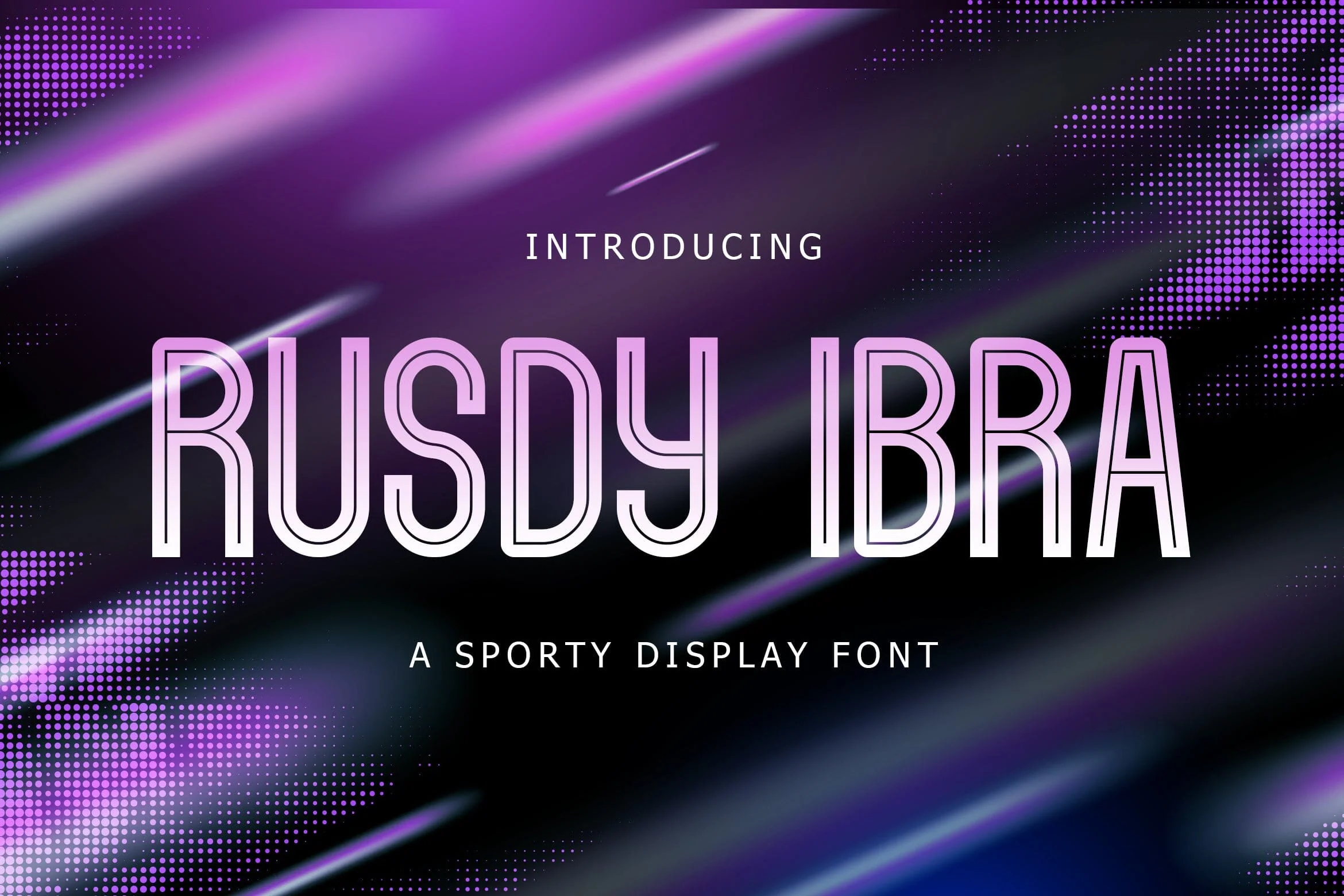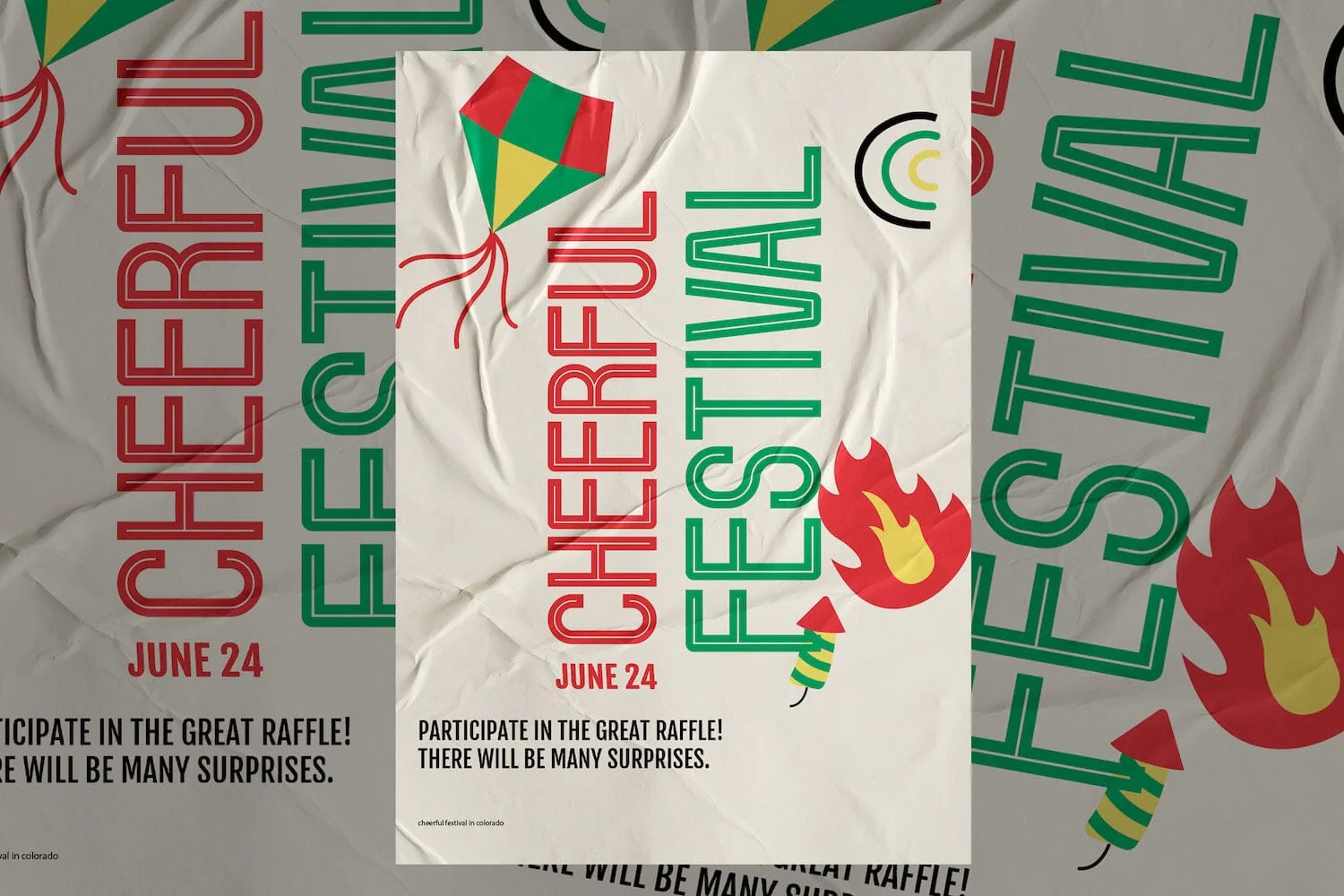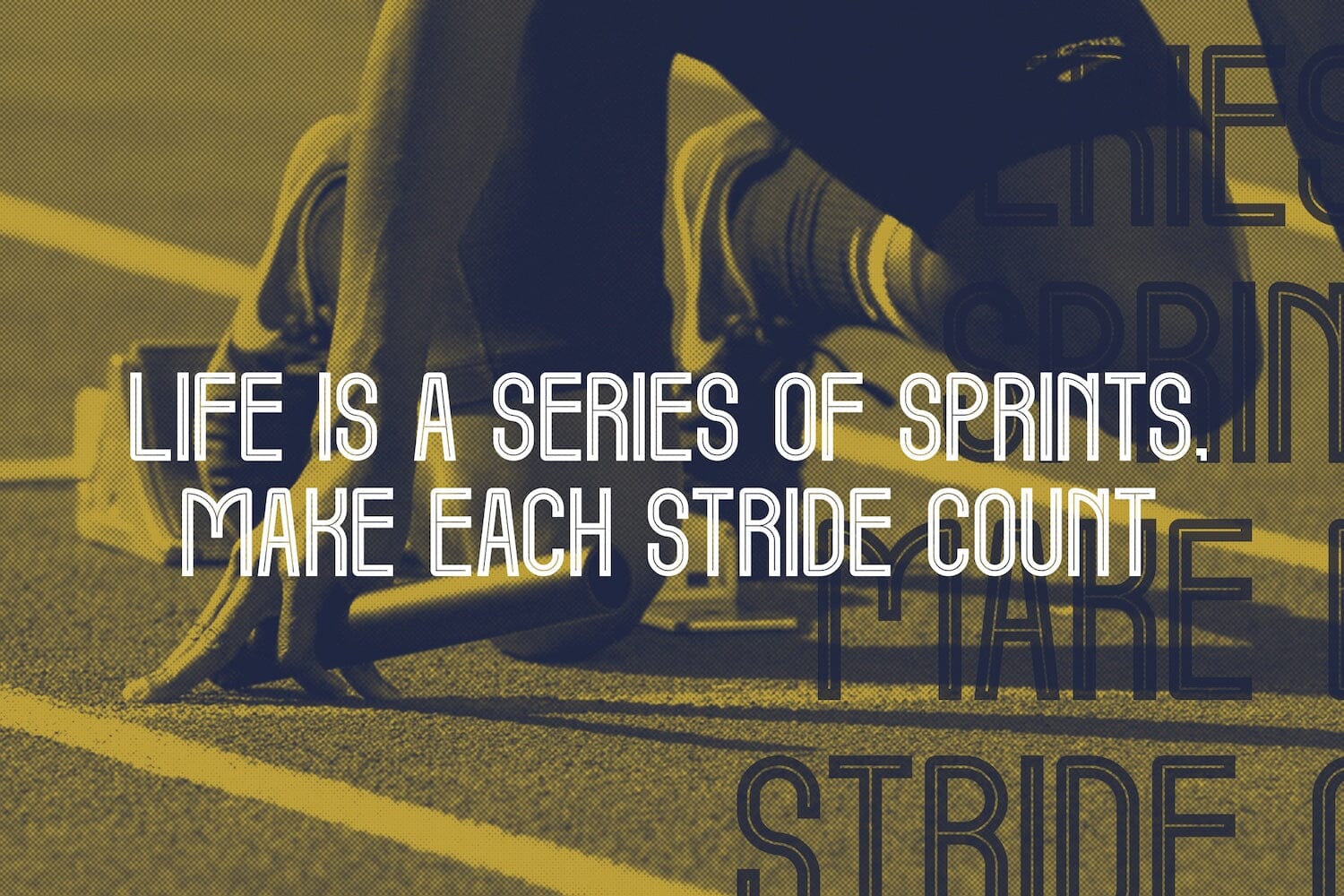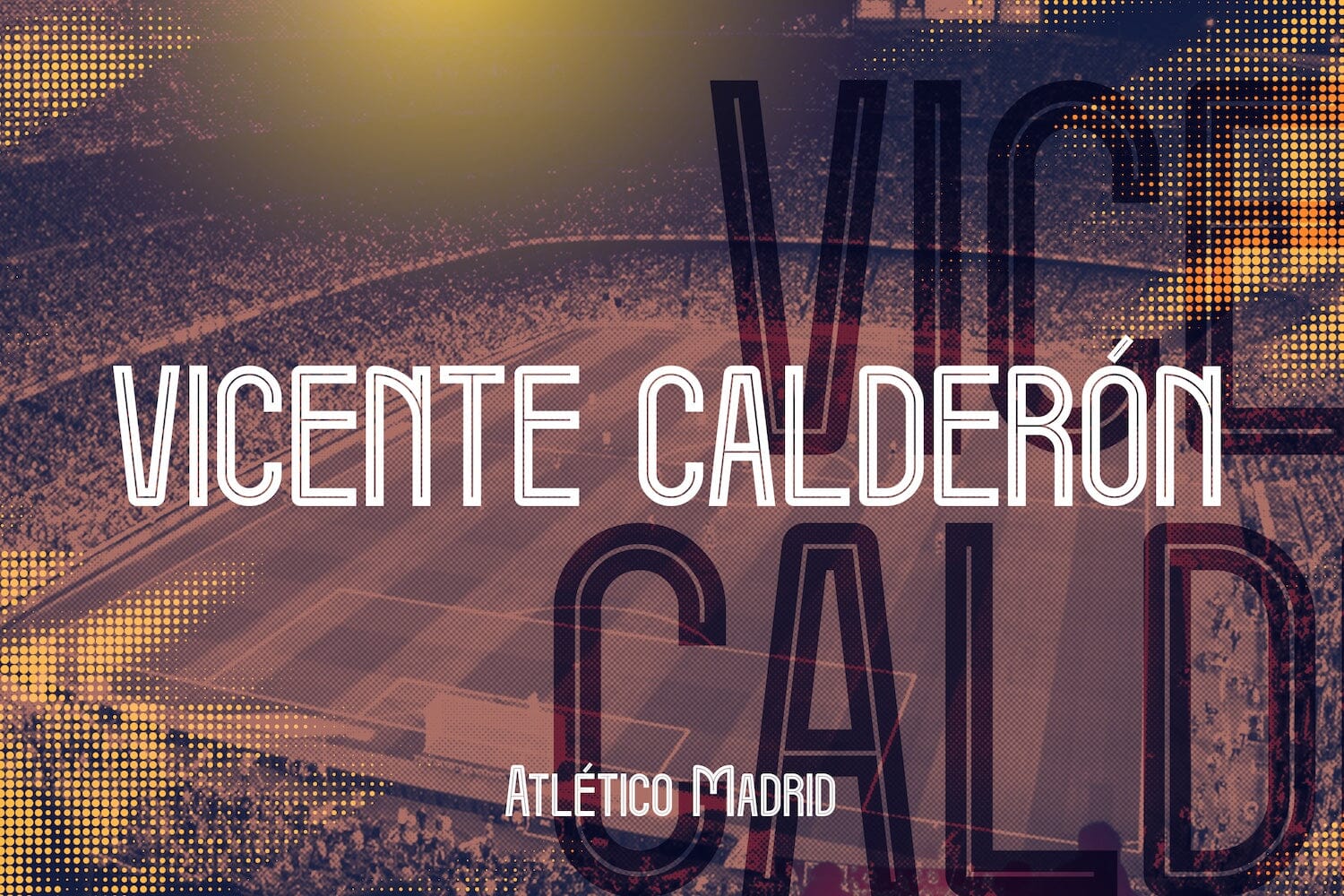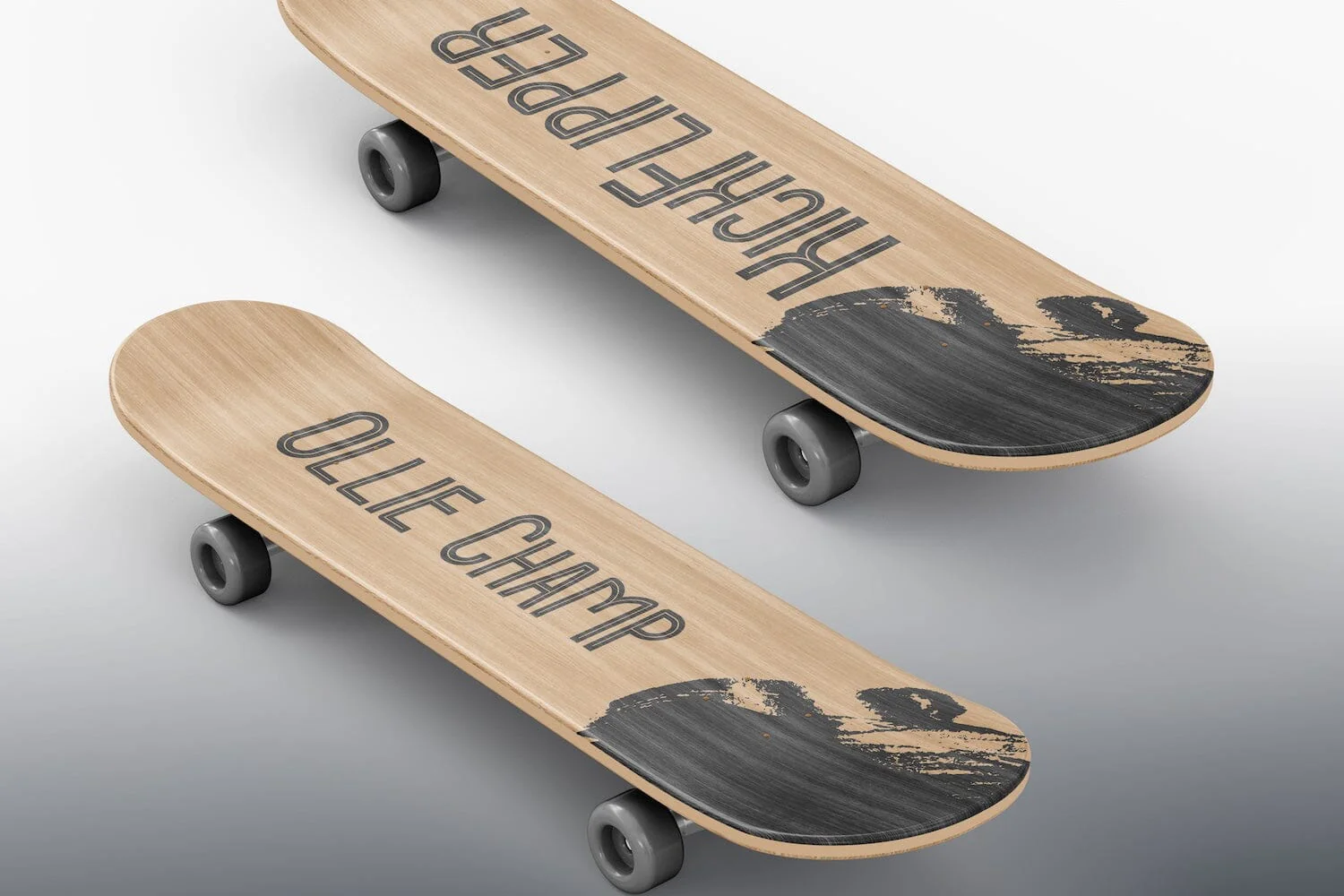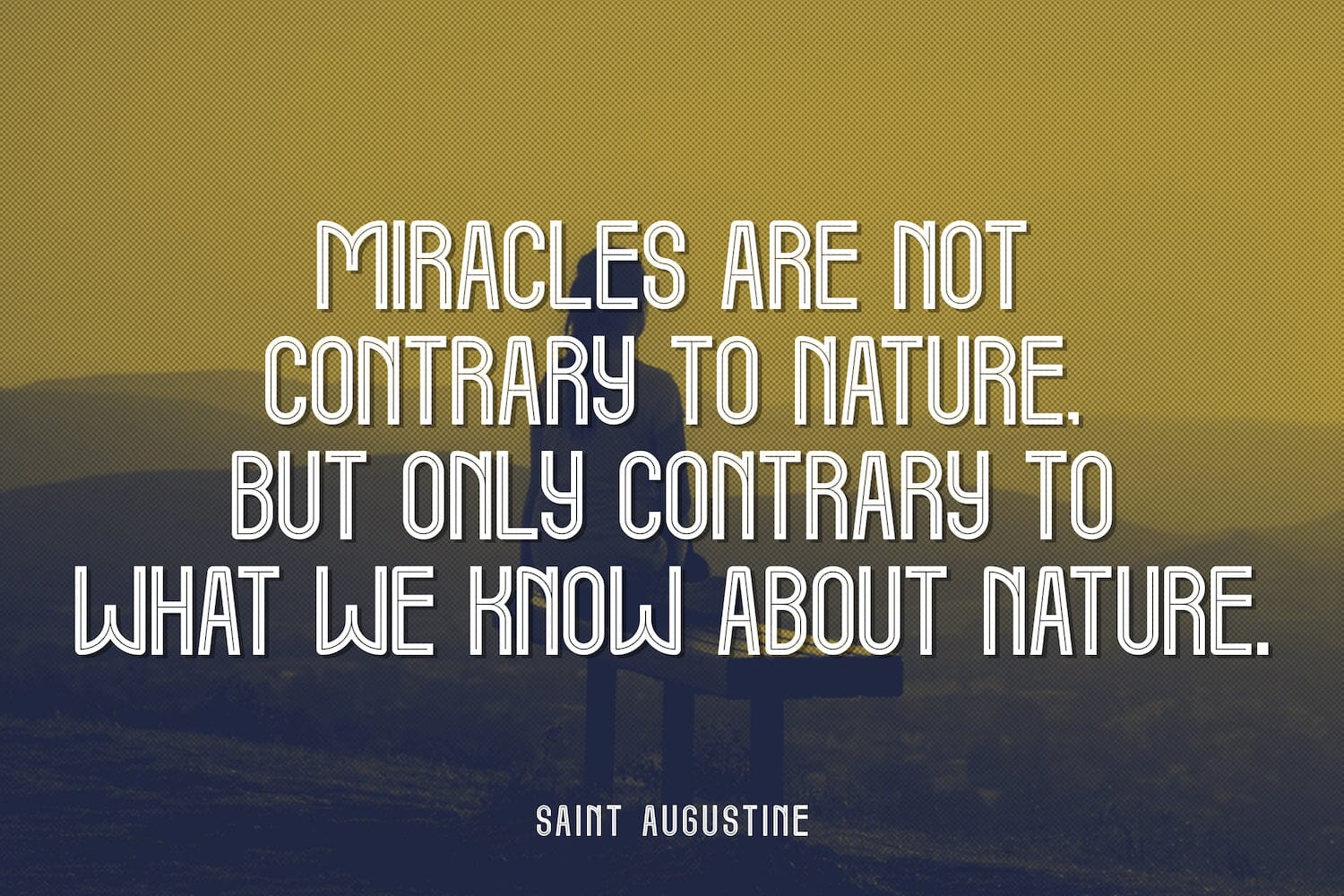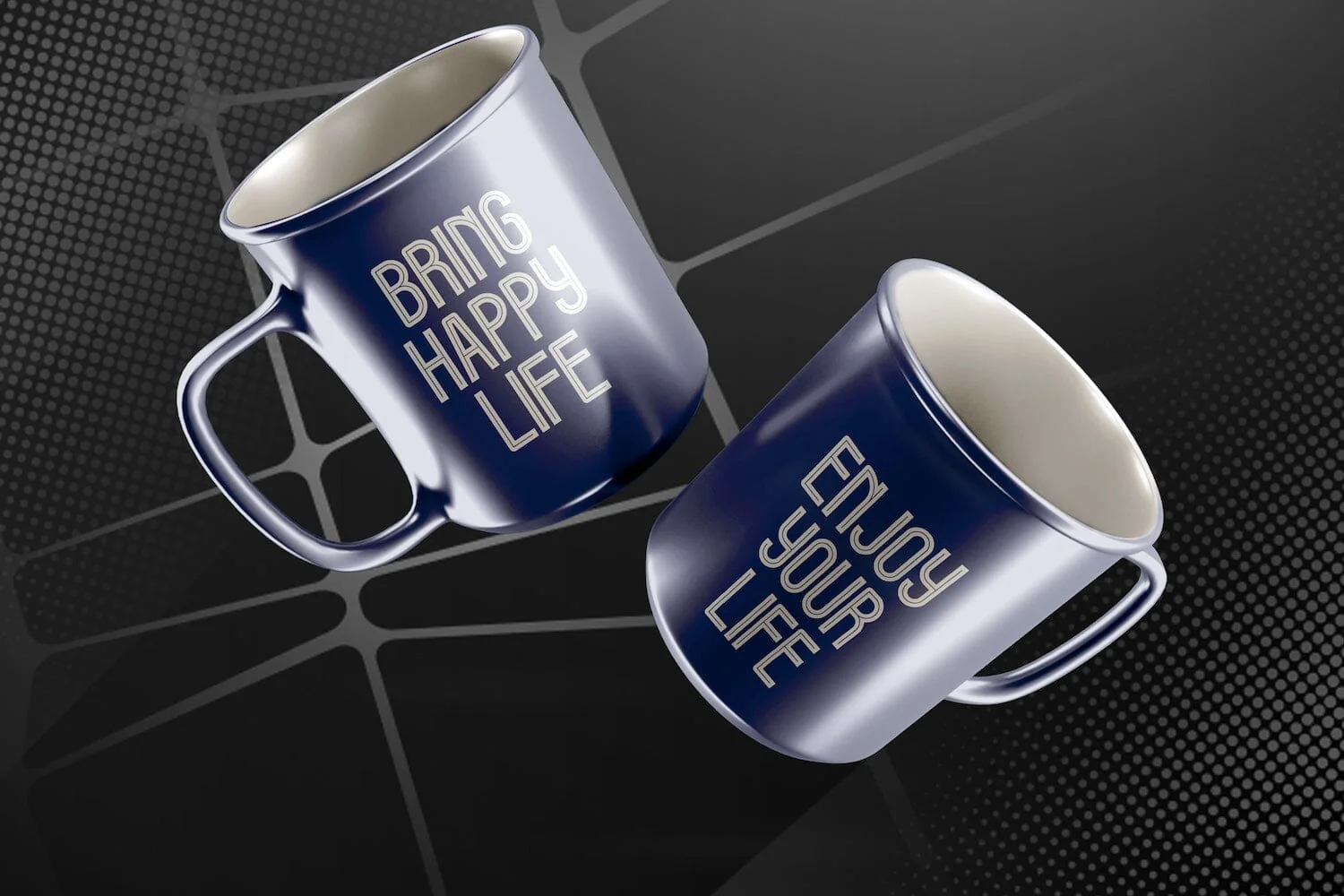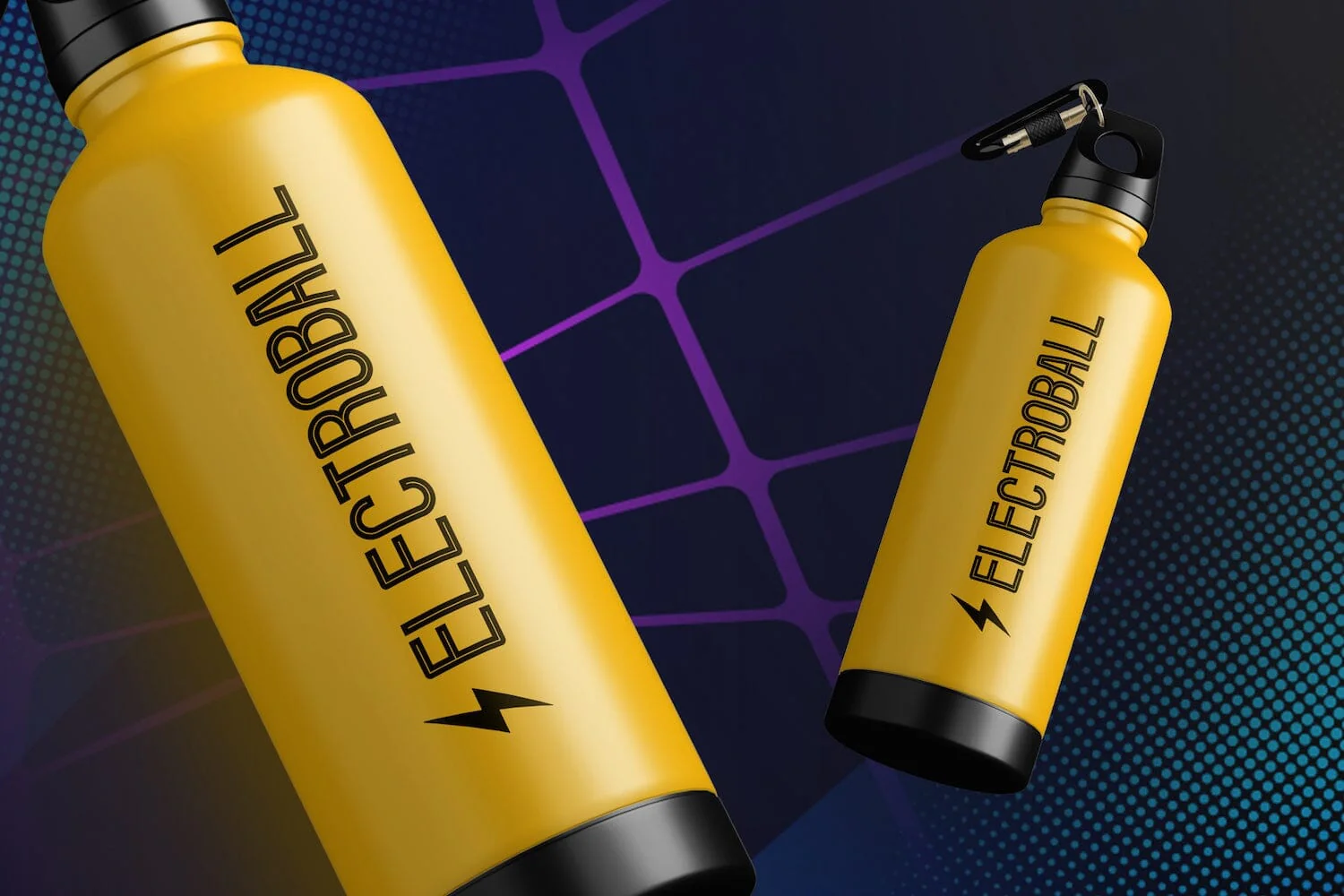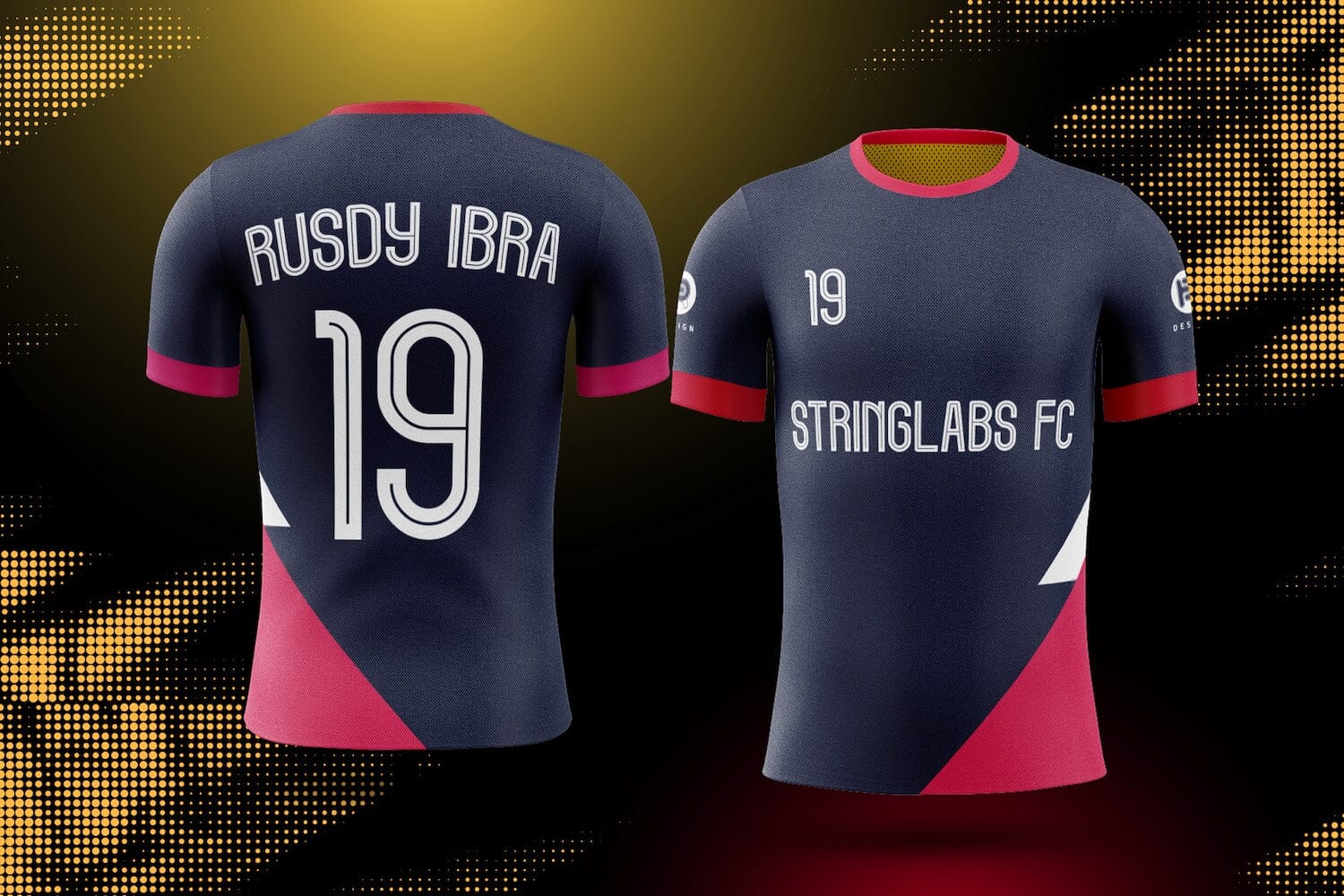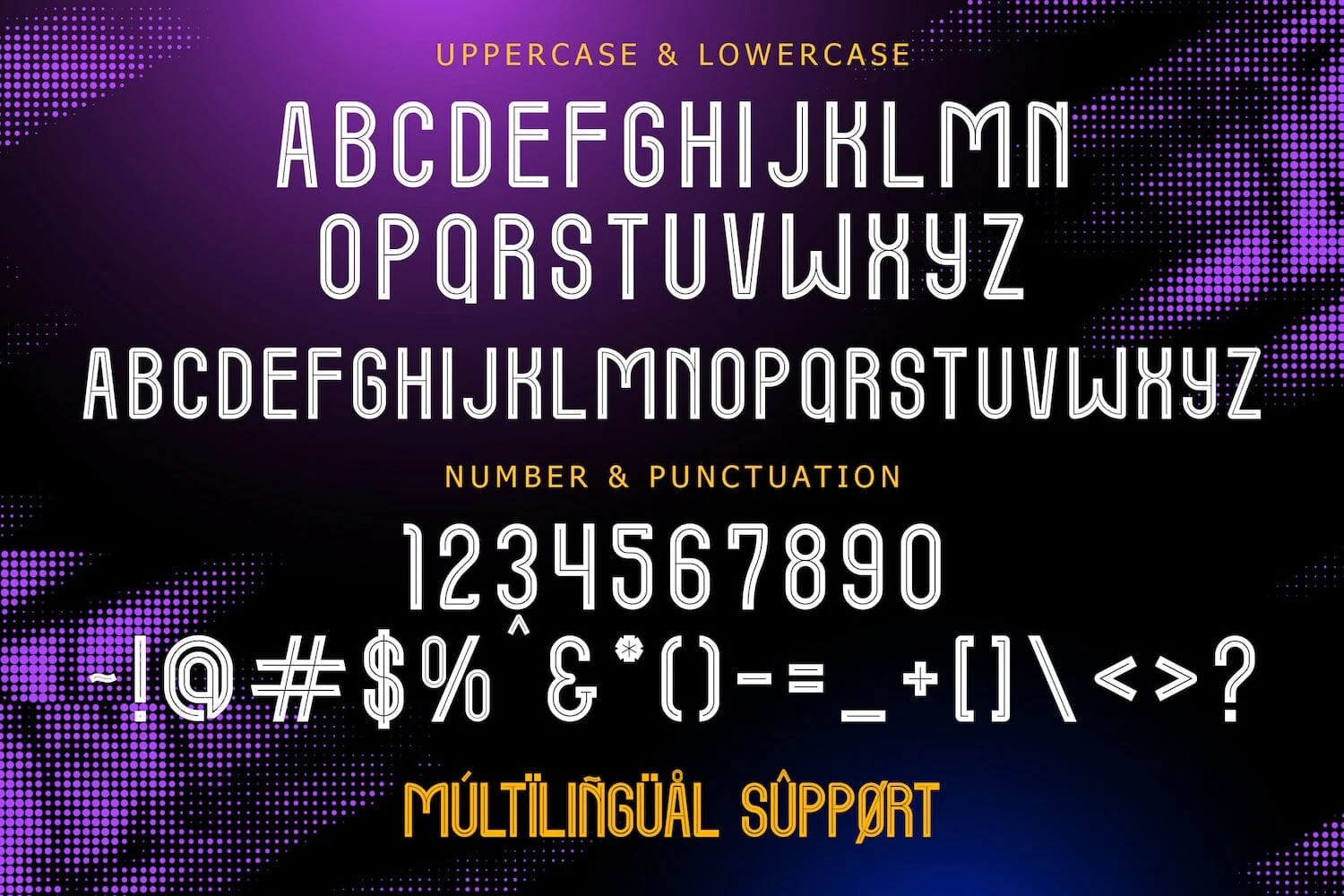
Rusdy Ibra - Sporty Display Font
Introducing Rusdy Ibra - Sporty Display Font
Rusdy Ibra is a sporty and modern display font. This playfully conceptual typeface font will look truly outstanding in a wide range of contexts. This font is very suitable for your any sports needs.